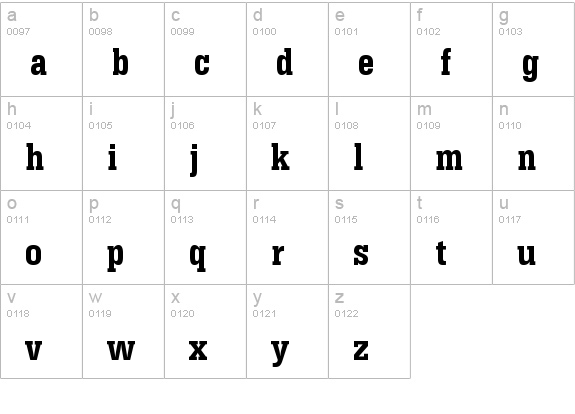
Serifa Bold Condensed Font Details
Serifa Bold Condensed is a strong, high-contrast, condensed-width variant in the Serifa typeface family \xE2\x80\x94 well suited to headlines, attention-grabbing titles, and strong calls-to-action.
Serifa Bold Condensed font is a powerful and dynamic typeface that commands attention with its bold and condensed design. This font exudes confidence and strength, making it perfect for headlines, titles, and any other attention-grabbing text. With its sharp and clean lines, Serifa Bold Condensed font adds a touch of sophistication to any project. Its condensed nature allows for maximum impact even in limited space, making it ideal for creating impactful designs in posters, banners, and advertisements. This font's bold weight gives it a sense of authority and presence, making it a great choice for conveying important information or emphasizing key messages. Its versatility allows it to work well in both modern and traditional design styles, making it a valuable asset for designers across various industries. Serifa Bold Condensed font is not only visually striking but also highly legible. Each character is meticulously crafted to ensure optimal readability, even at smaller sizes. This font's clarity and consistency make it a reliable choice for any project, whether it's printed materials or digital content. What's even better is that Serifa Bold Condensed font is freely available to download at FontsMarket.com. This means that you can easily access and use this font in your designs without any restrictions or limitations. Whether you're a professional designer or a hobbyist, this font offers a high-quality and visually pleasing option that won't cost you a dime. So, if you're looking to make a bold statement with your typography, look no further than Serifa Bold Condensed font. Download it for free today at FontsMarket.com and unlock the potential of this versatile and impactful typeface.